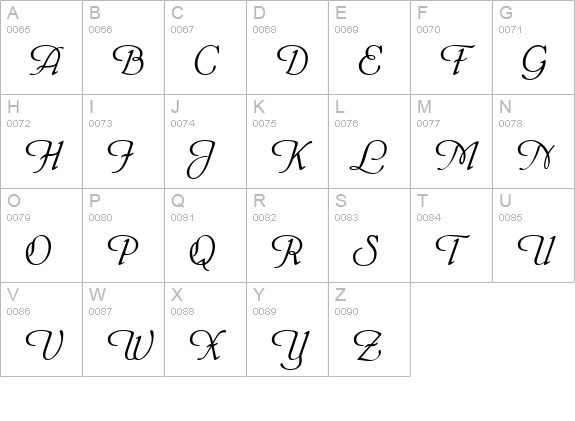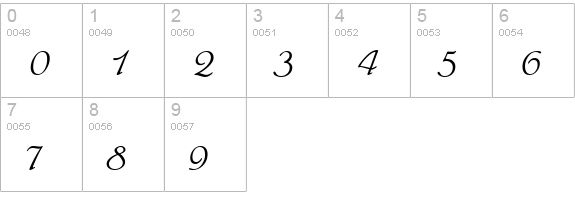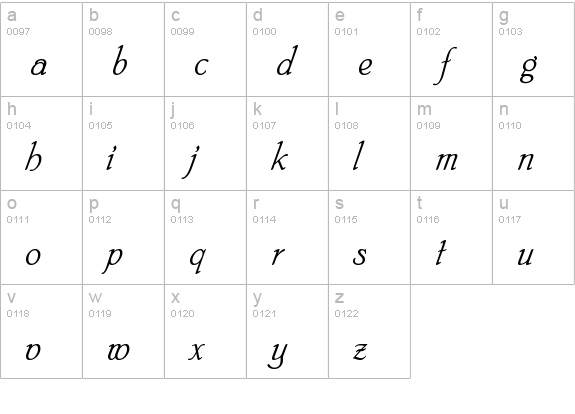
Heinrich Script Font Details
Heinrich Script is a stunning and elegant font that exudes a sense of sophistication and charm. With its intricate and flowing script, this font is perfect for adding a touch of elegance to any project. Whether you're designing wedding invitations, creating a logo, or crafting a beautiful quote, Heinrich Script will elevate your design to new heights. This font is not only visually pleasing but also incredibly versatile. With its wide range of ligatures and alternate characters, you can easily customize and personalize your text to create a unique and individualized look. Each letter is meticulously crafted to ensure smooth and seamless connections, resulting in a beautifully fluid script that is a pleasure to read. One of the best features of Heinrich Script is that it is free! Yes, you read that right. This amazing font is freely available to download at FontsMarket.com. Now you can enjoy the elegance and beauty of Heinrich Script without breaking the bank. Whether you're a professional designer or a hobbyist, this font is a must-have in your collection. So don't wait any longer. Head over to FontsMarket.com and download Heinrich Script today. Let your creativity flow and watch as your designs come to life with this exquisite and free font.